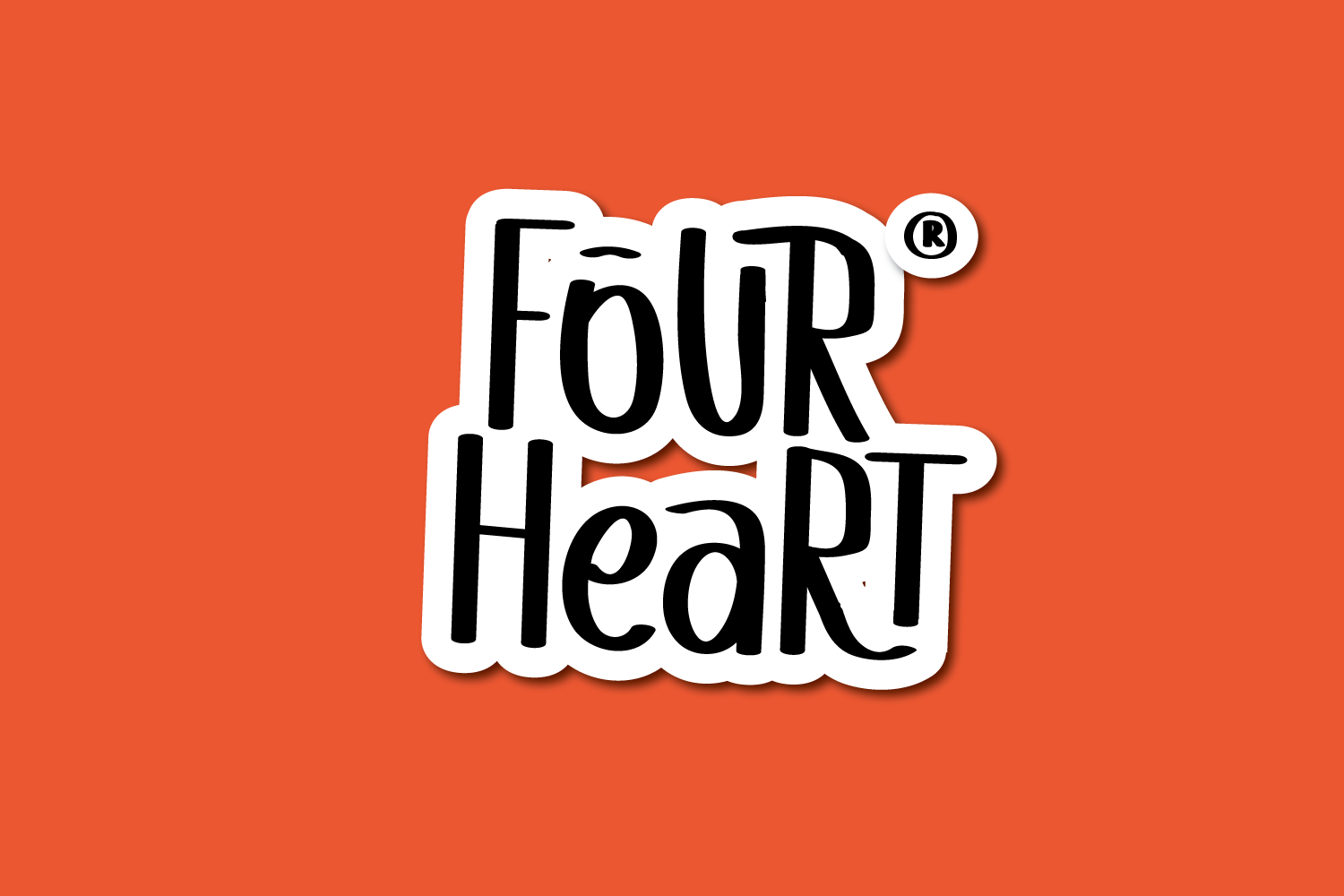
Four Heart Typography Using El Toro Loco Font
Four Heart created using El Toro Loco font ( The Mad Bull ) a hand written style font with unique character, bold and strong yet still beautiful and funt at the same time.